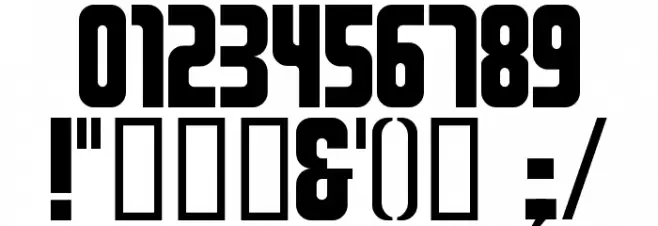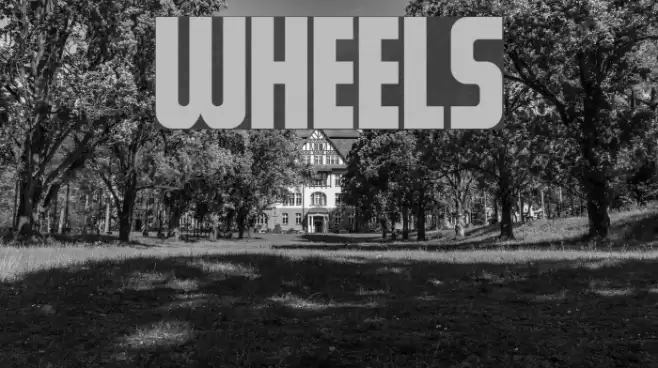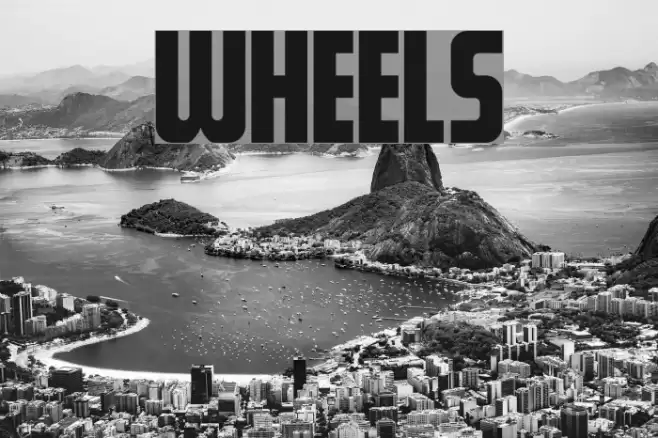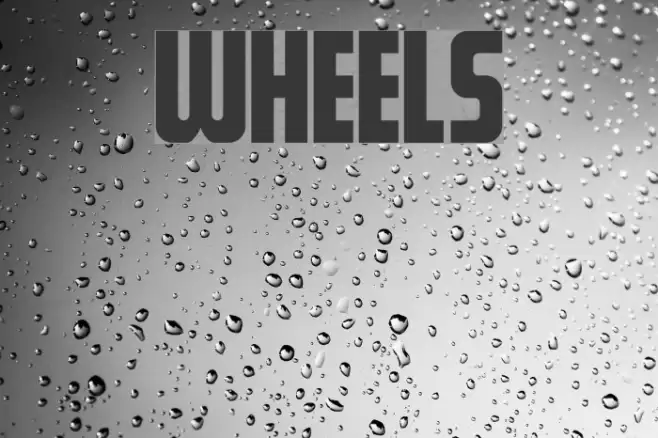
Wheels Font
Wheels Description
This font features a bold and impactful design with strong geometric shapes and a modern aesthetic. The characters are constructed with thick, uniform strokes that create a sense of stability and strength. The uppercase and lowercase letters maintain a consistent height, contributing to a cohesive and structured appearance. The numbers and special characters are equally robust, ensuring legibility and clarity. This font's design is ideal for making a statement, with its bold presence and clear readability.